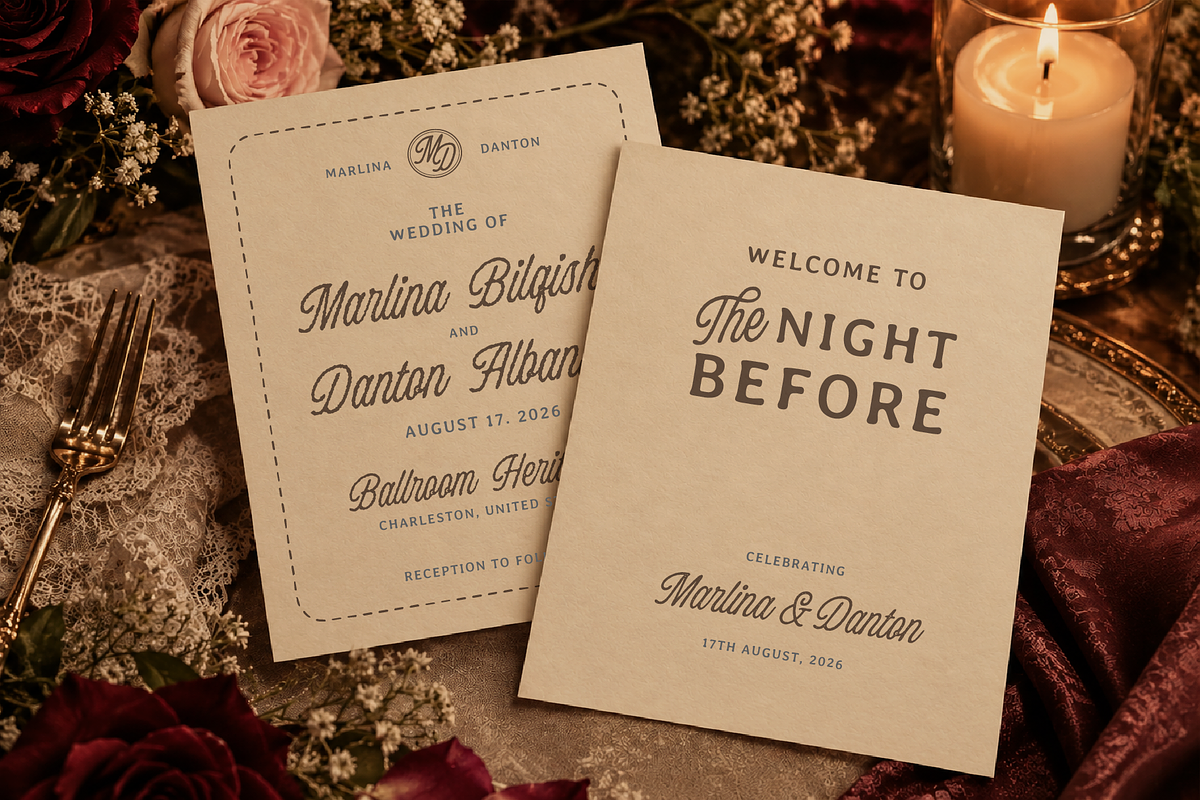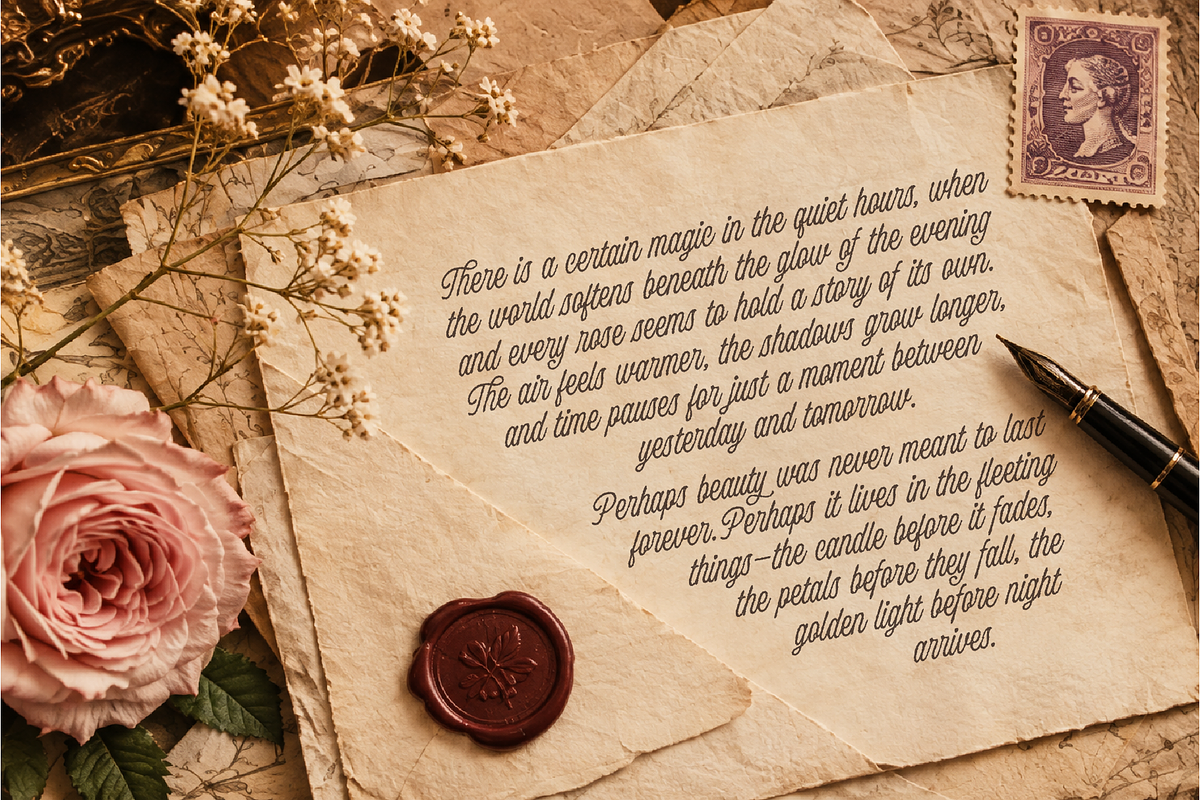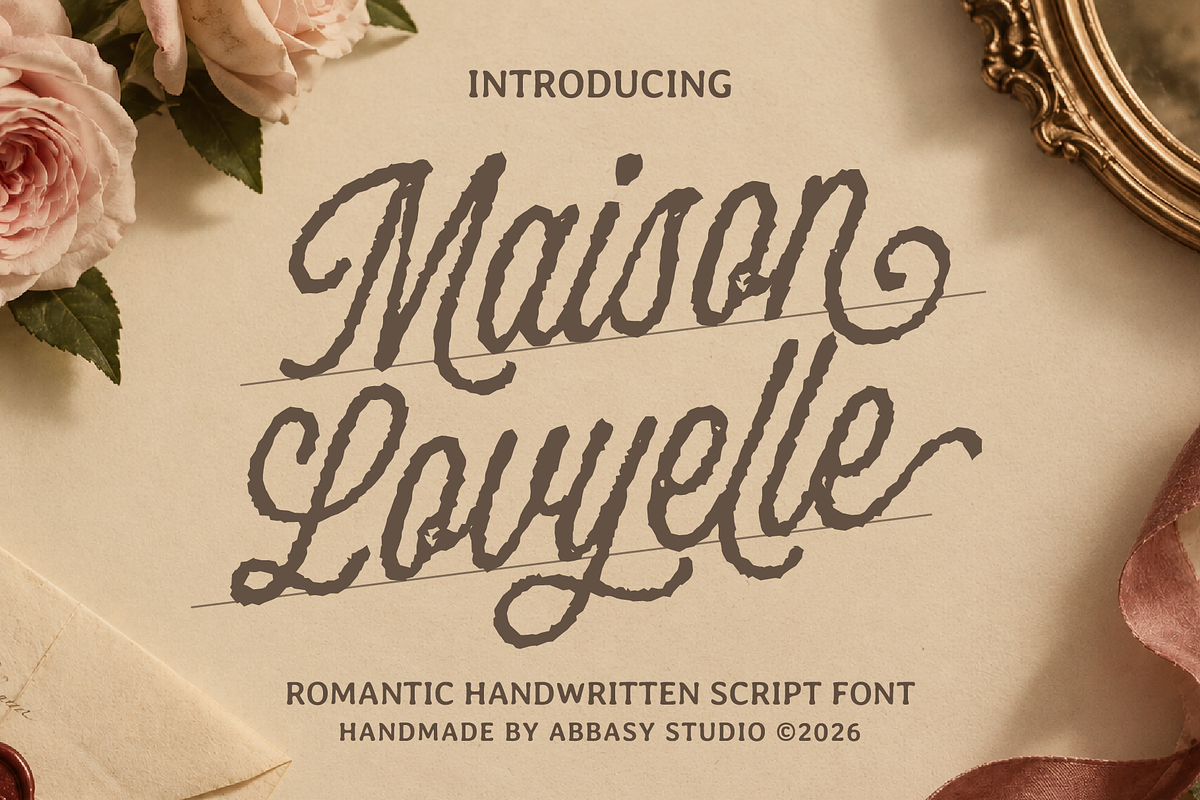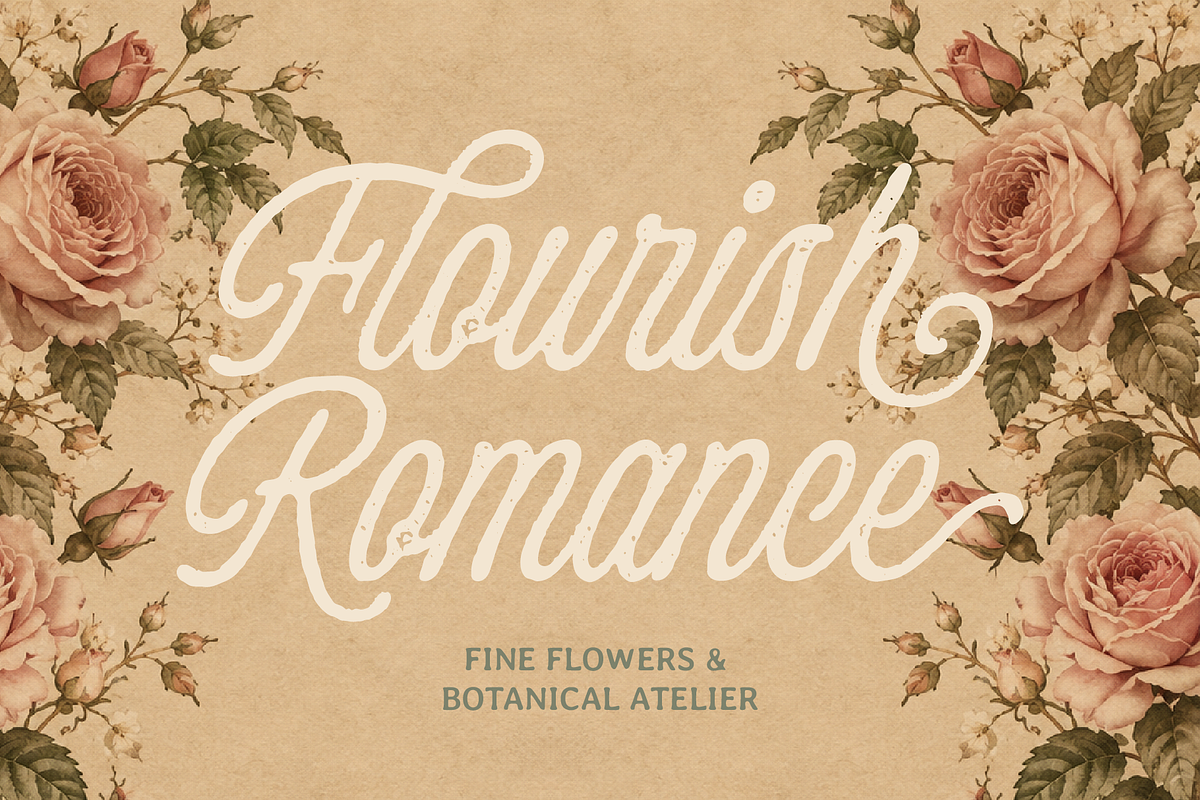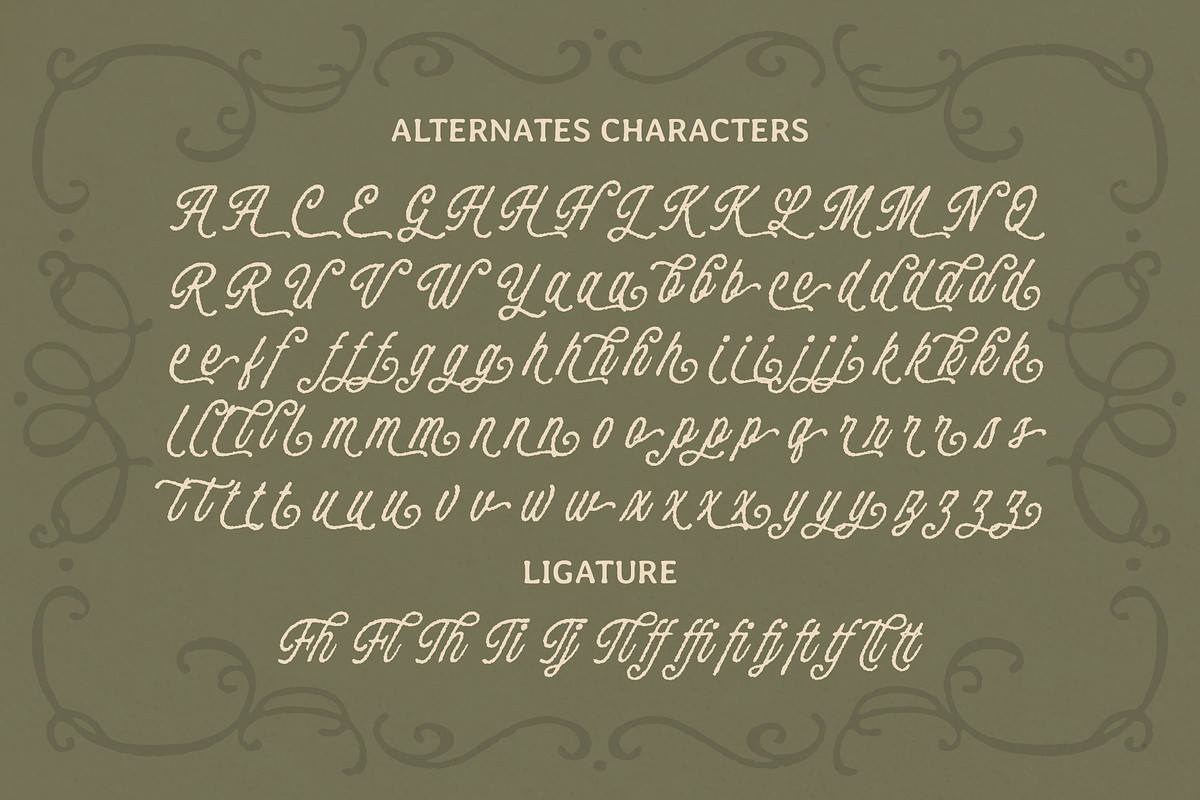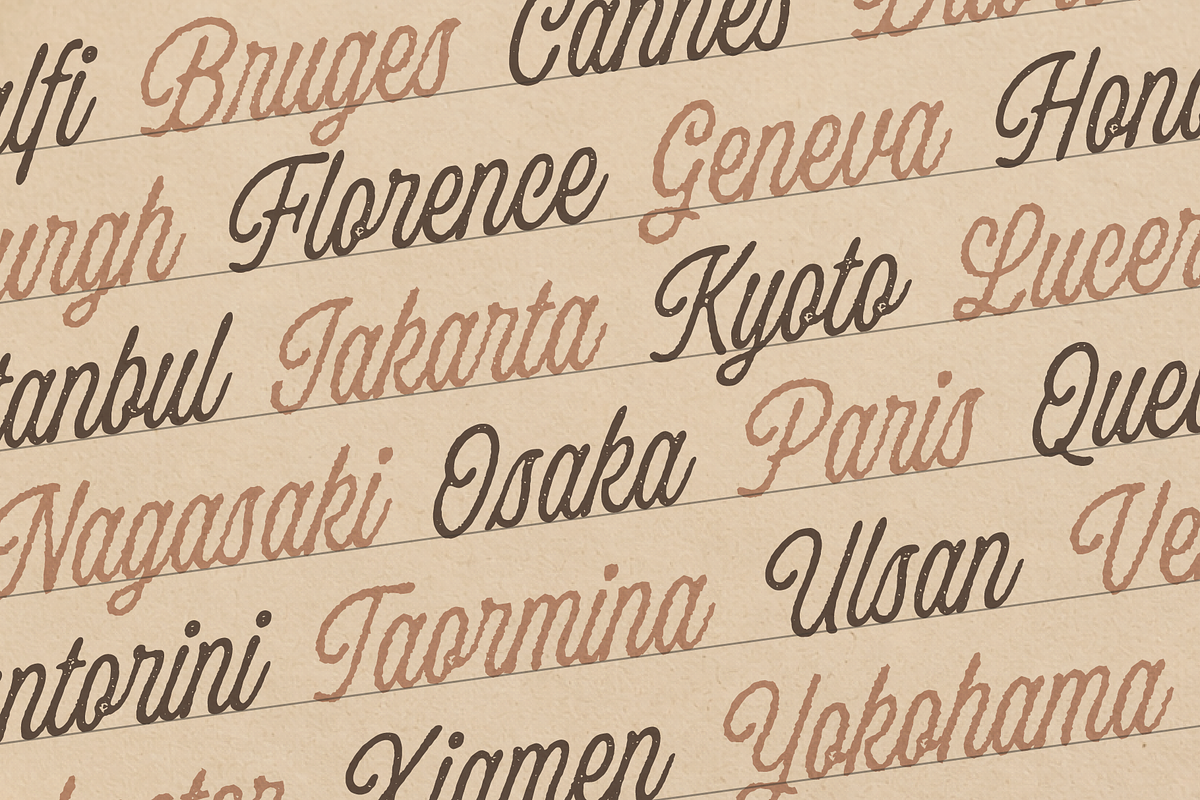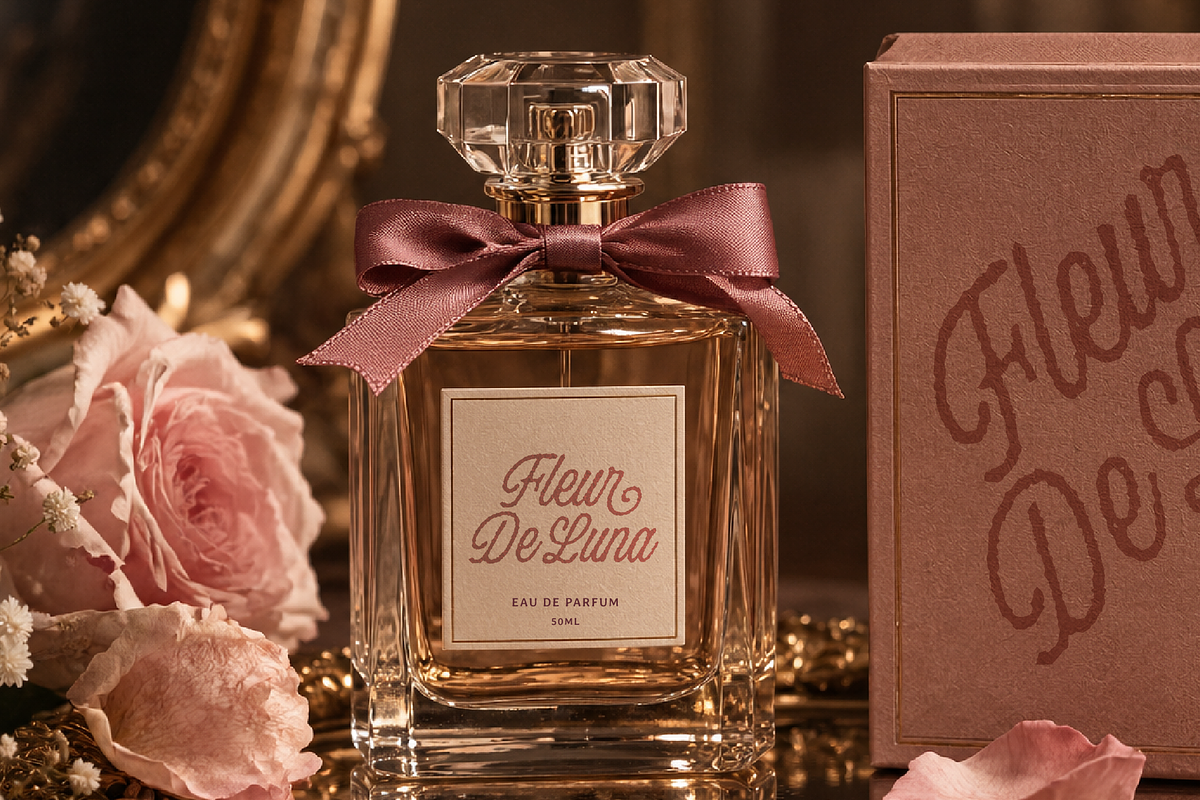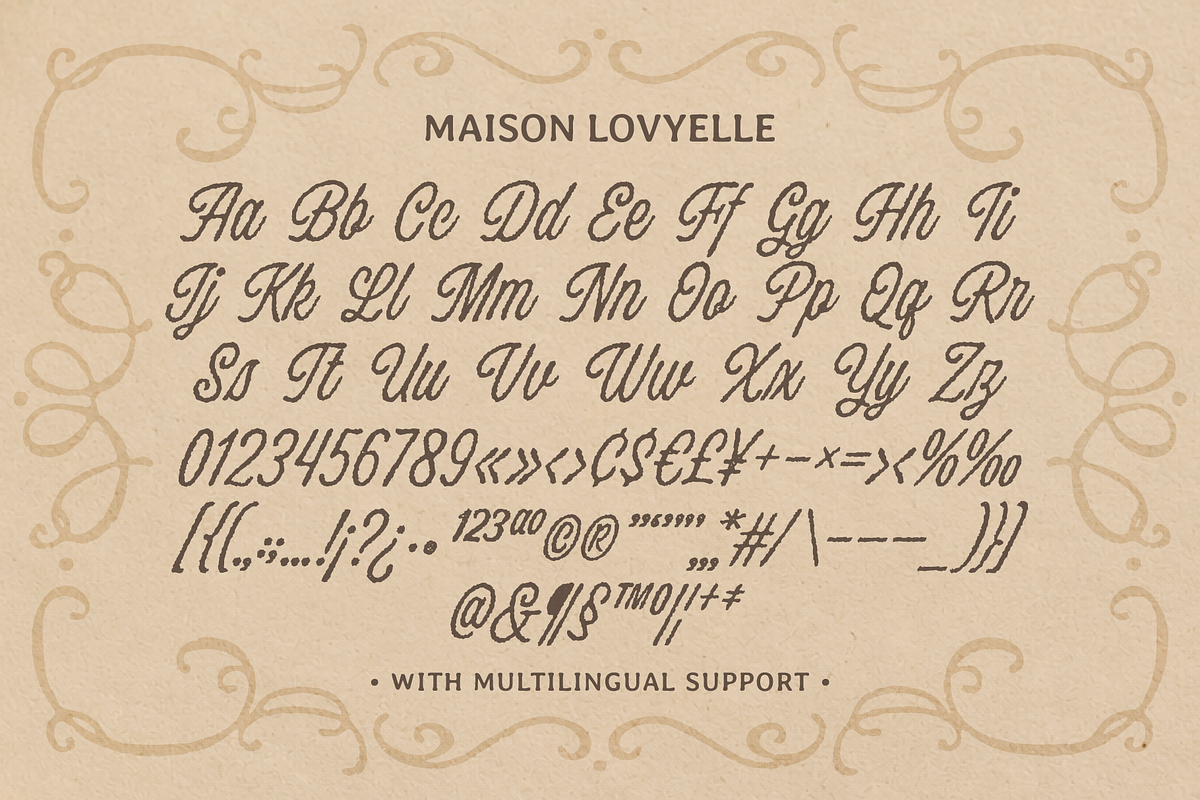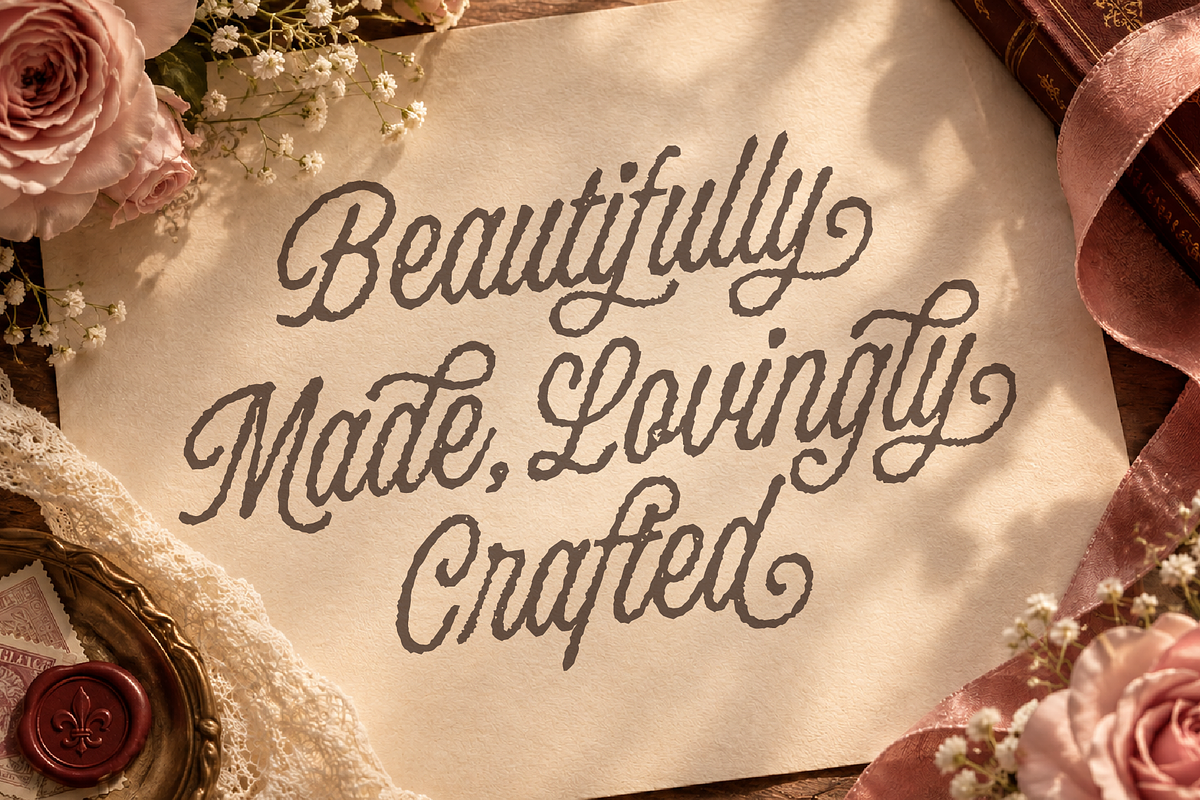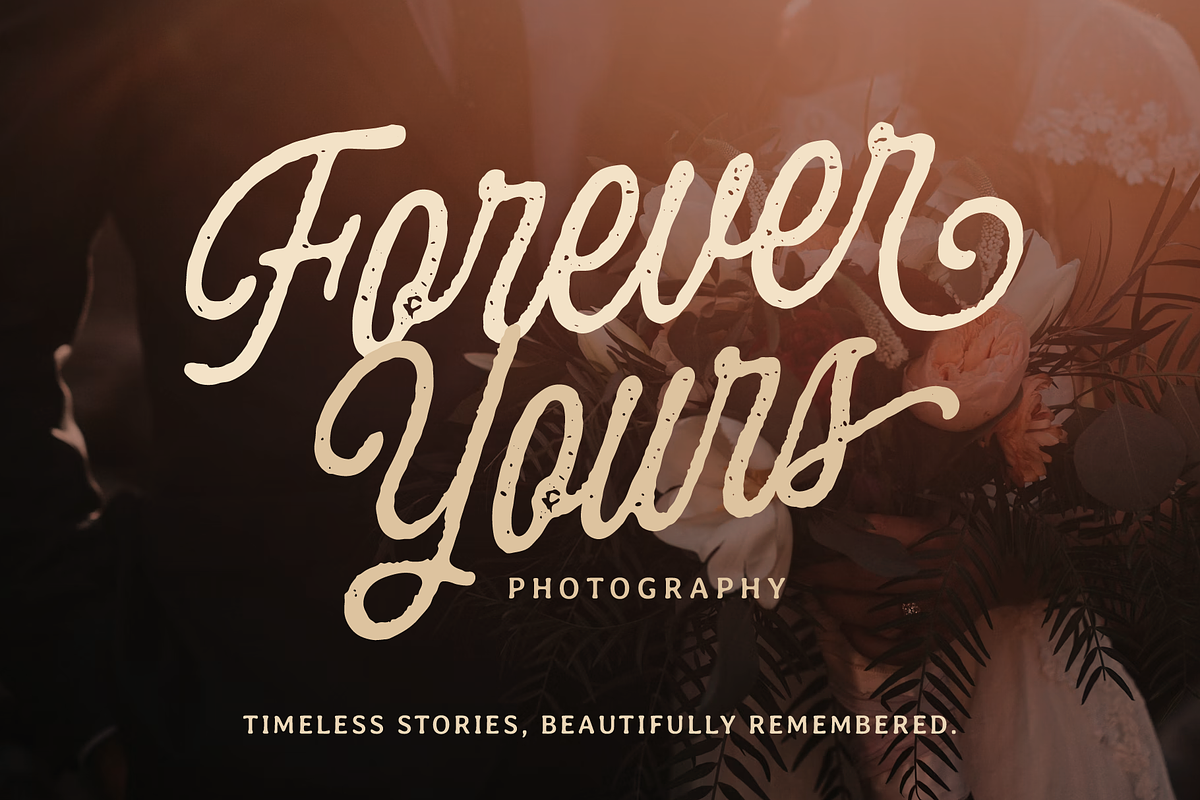
Maison Lovyelle
Maison Lovyelle is a romantic handwritten script font family that combines timeless elegance with a charming vintage feel. Featuring two distinctive styles, Regular and Rough, this typeface offers versatility for creating designs with personality, warmth, and sophistication.
Maison Lovyelle Regular features smooth, flowing letterforms with graceful curves and an elegant handwritten appearance. Its delicate and refined character makes it perfect for romantic, feminine, and sophisticated designs.
Maison Lovyelle Rough brings a more organic and textured look, adding a handcrafted feel and vintage charm to your typography. Its distressed appearance creates a distinctive character while maintaining the romantic personality of the original design.
Together, these two styles offer a beautiful balance between elegance and texture, allowing you to explore different moods and creative directions in your projects.
Wedding invitations and stationery
Luxury and boutique branding
Fashion and beauty projects
Packaging and product labels
Editorial design and magazine layouts
Romantic posters and greeting cards
Social media graphics and personal projects
Whether you prefer the graceful look of Regular or the vintage character of Rough, Maison Lovyelle brings a romantic handwritten touch to every design.
Two styles, one beautiful personality.